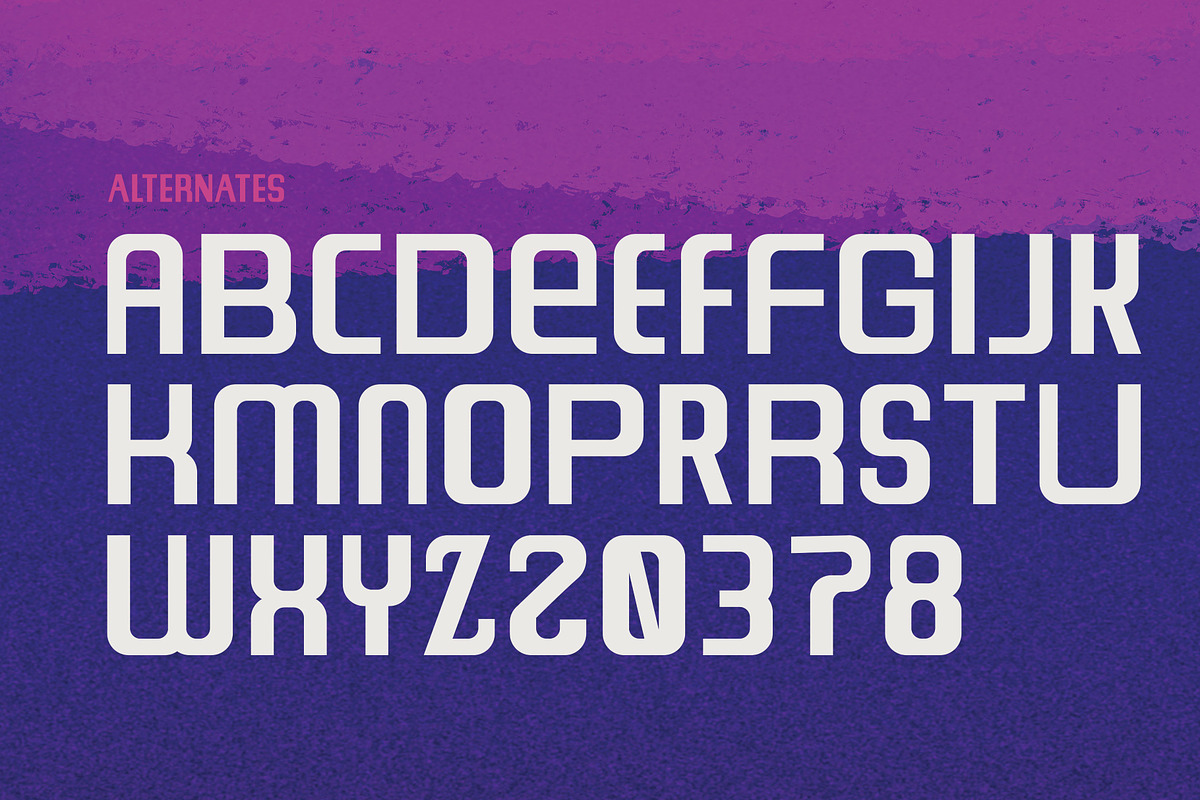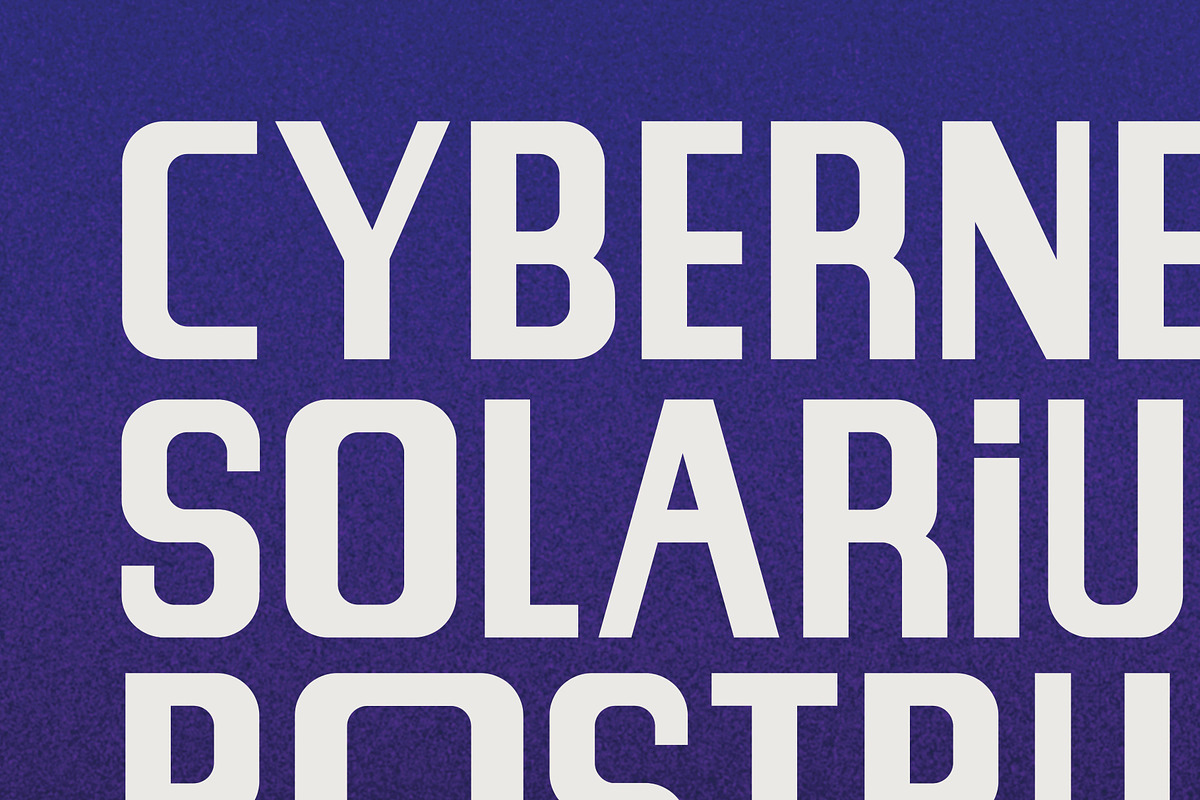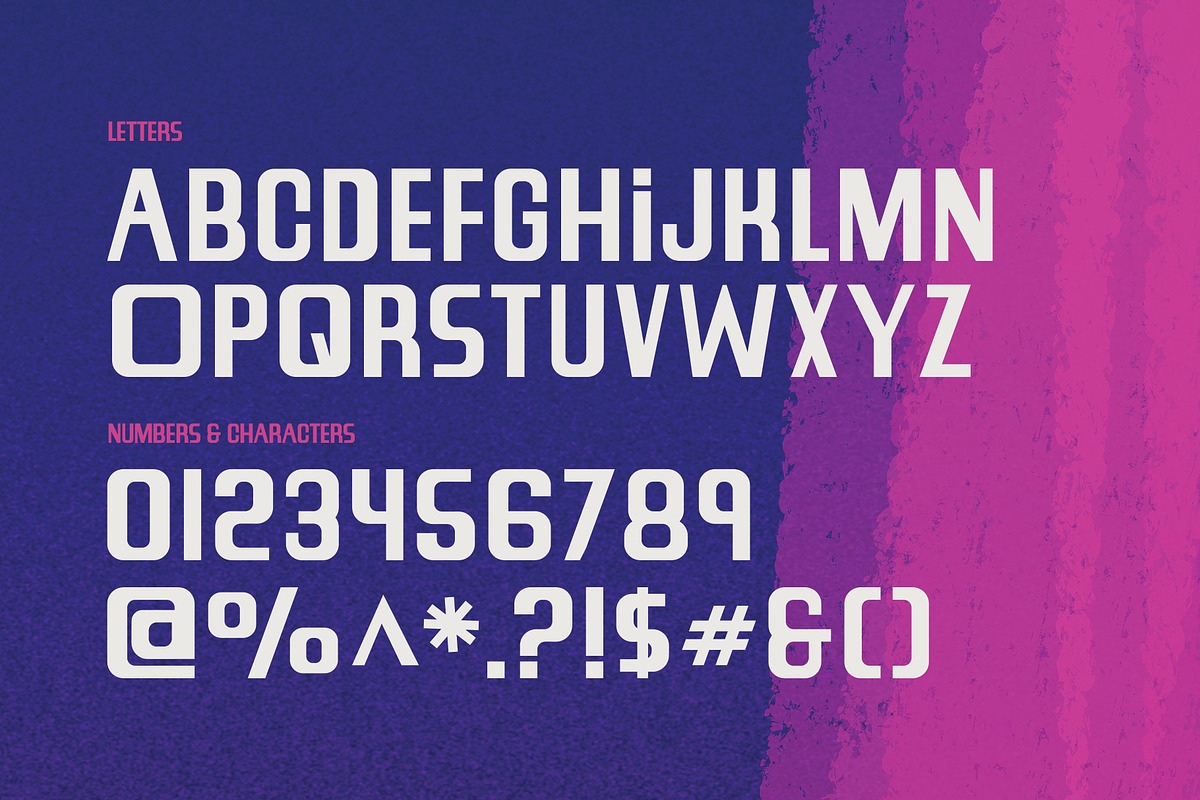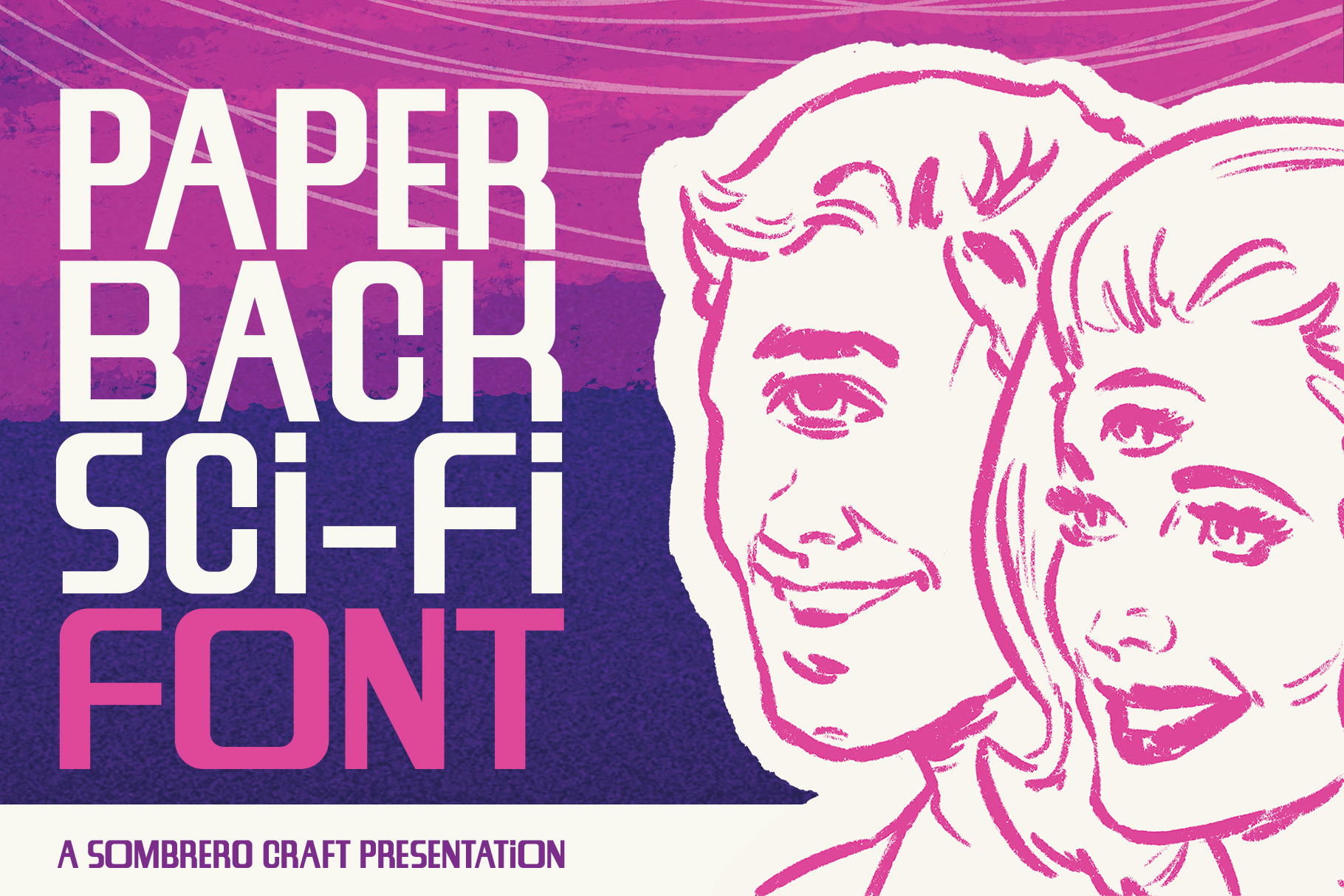
Paperback Sci-Fi - Display Font
Paperback Sci-Fi is your go-to display font to evoke the envisioned future of the 1960s. Drawing inspiration from mid-century, budget-friendly science fiction novels, this all-caps font, brimming with personality, captures the retro-futuristic vibe perfectly. With a few alternate characters for added versatility, Paperback Sci-Fi infuses your design with a unique sense of time-traveling nostalgia.